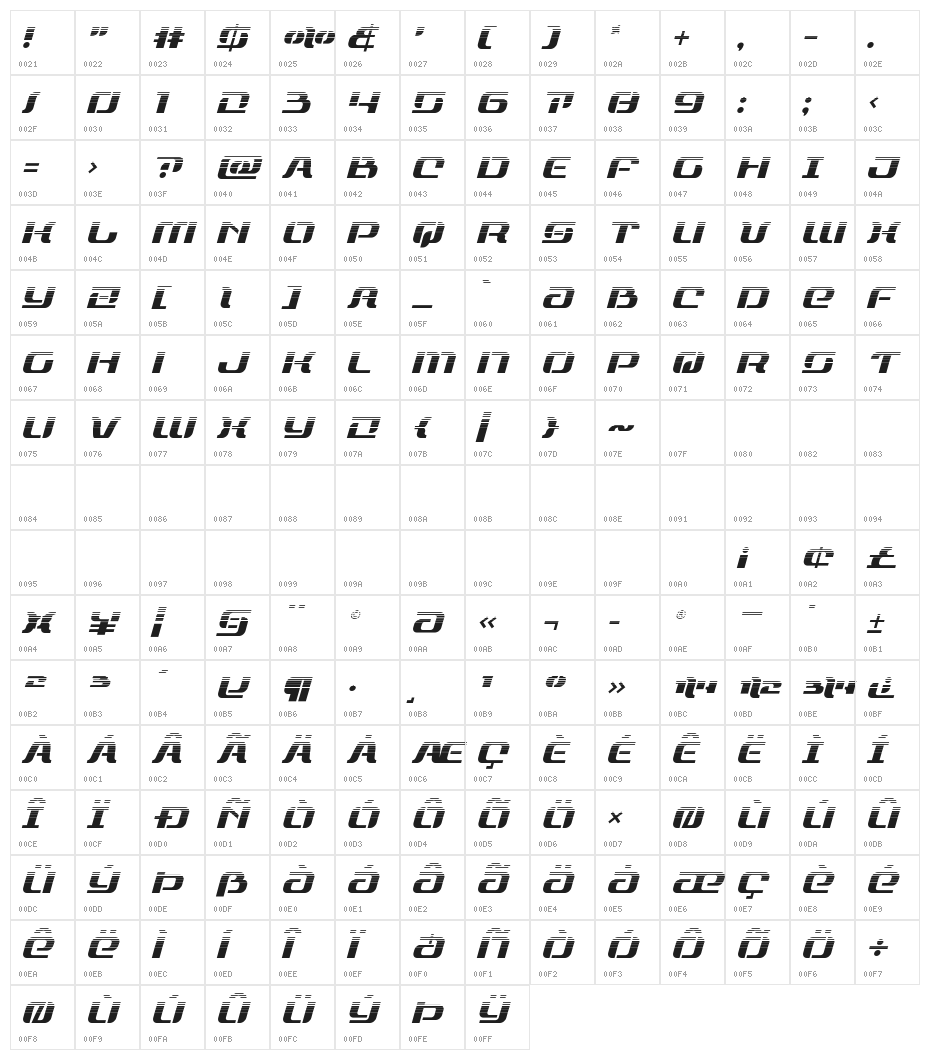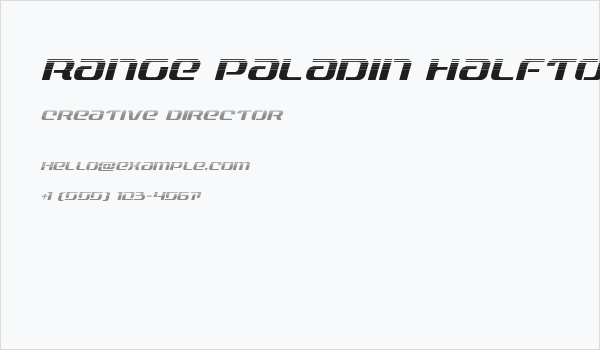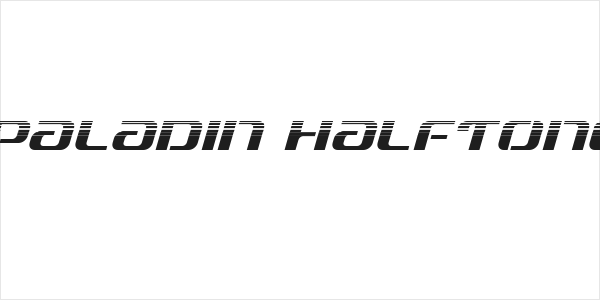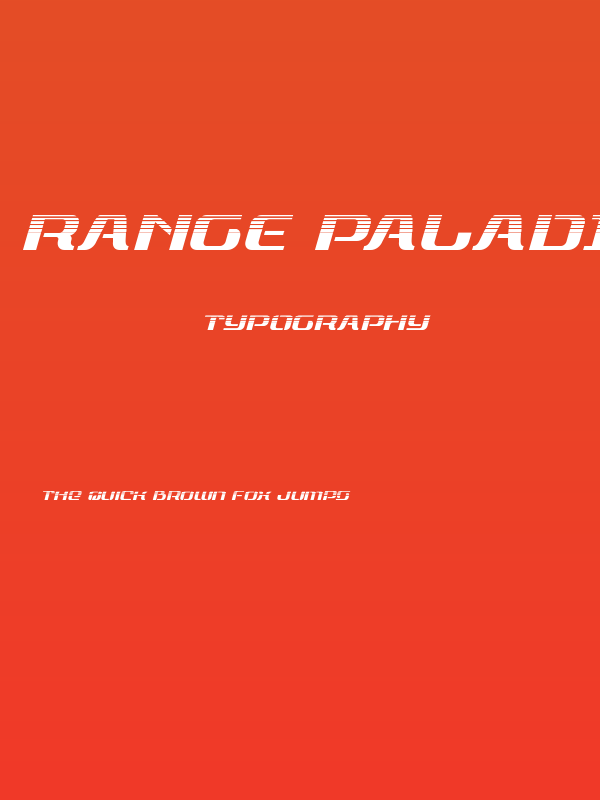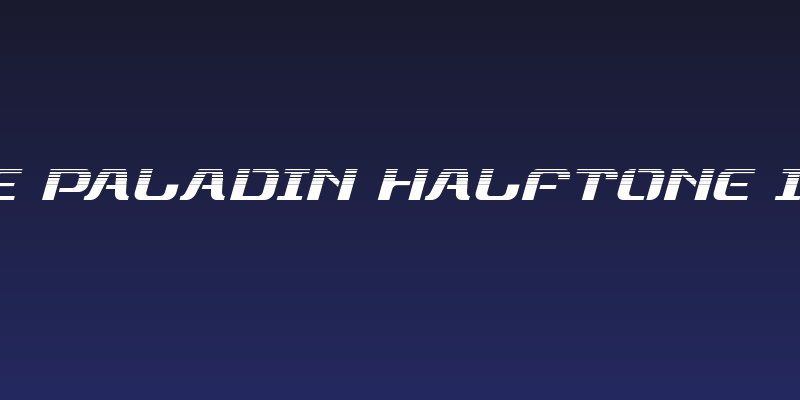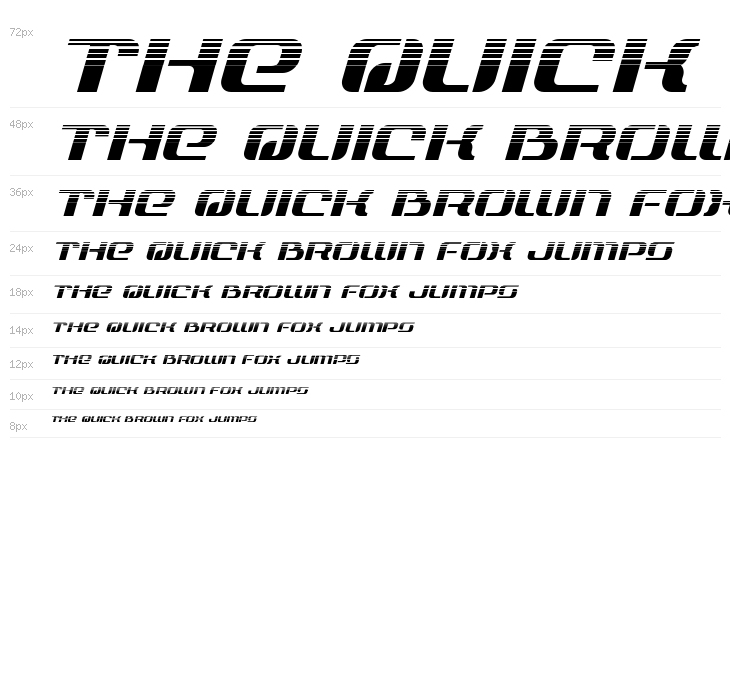
Range Paladin Halftone Italic Font
Range Paladin Halftone Italic Description
This font features a dynamic and futuristic design with a halftone effect that gives it a unique, digital appearance. The characters are italicized, adding a sense of motion and speed. The strokes are bold and consistent, with a high contrast between the thick and thin parts of the letters. The halftone pattern creates an intriguing visual texture, making it stand out in any design. The spacing between characters is tight, enhancing the compact and cohesive look of the text. This font is ideal for projects that require a modern and edgy aesthetic.
| Proposed Projects | Ideal for digital art, tech branding, video game titles, and futuristic posters. |